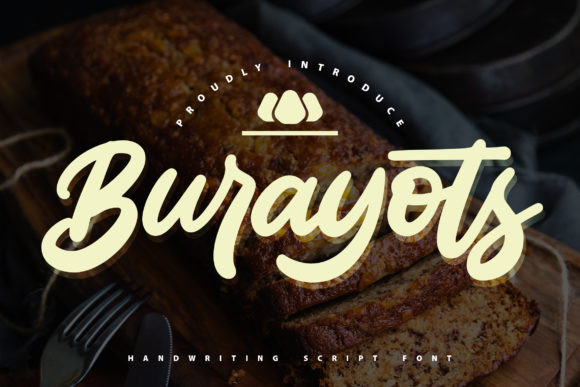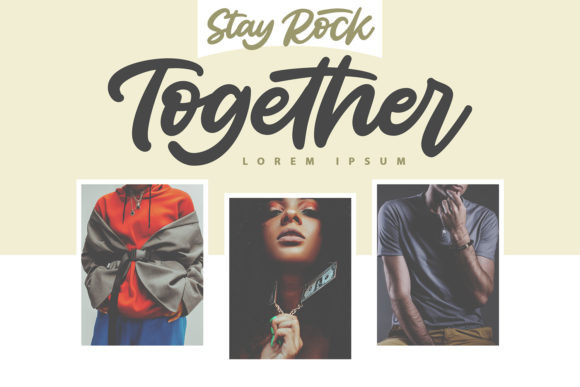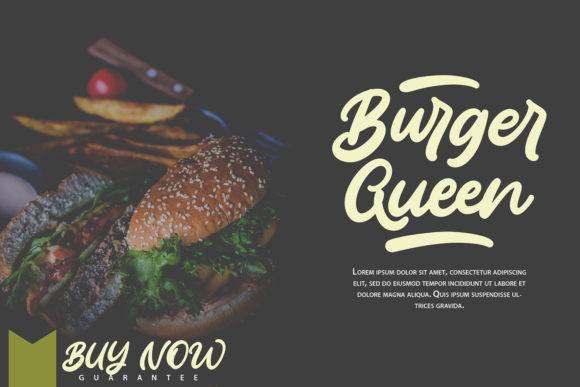
Burayots Font
Burayots FontBurayots is an assertive handwritten font, masterfully designed to become a true favorite. It maintains its classy calligraphic influences while feeling contemporary and fresh. Fall in love with it and bring your projects to the highest levels!